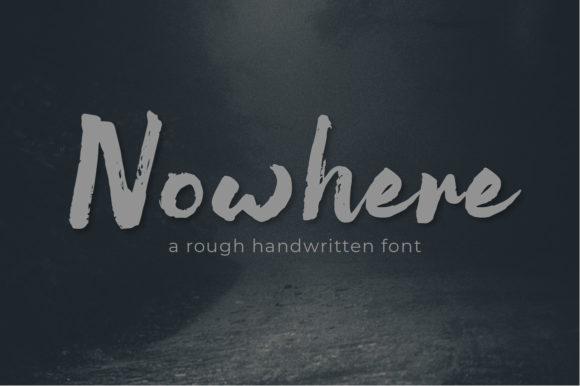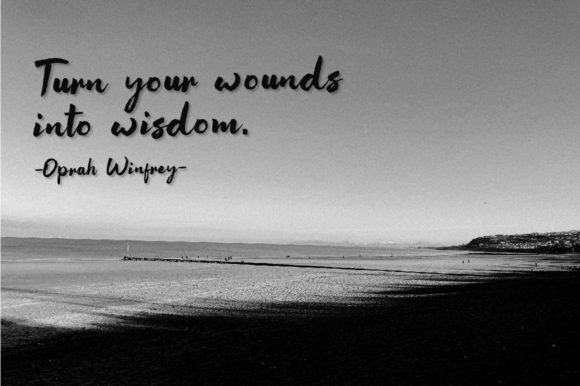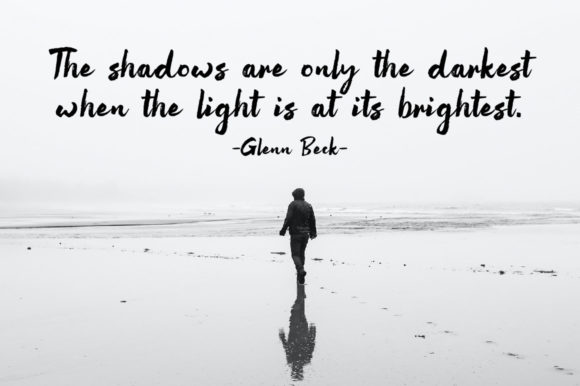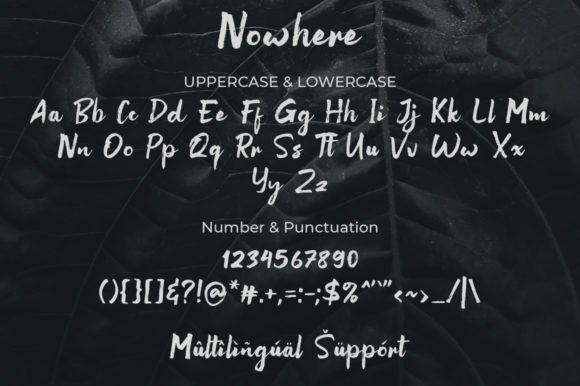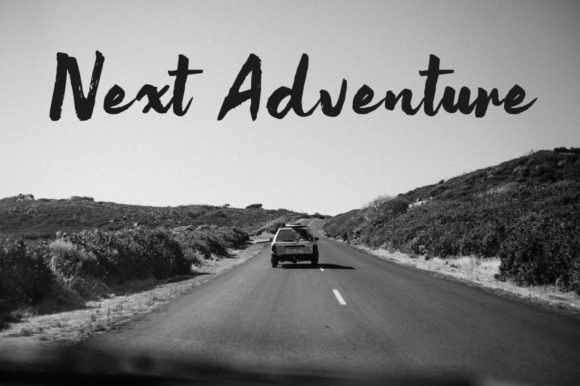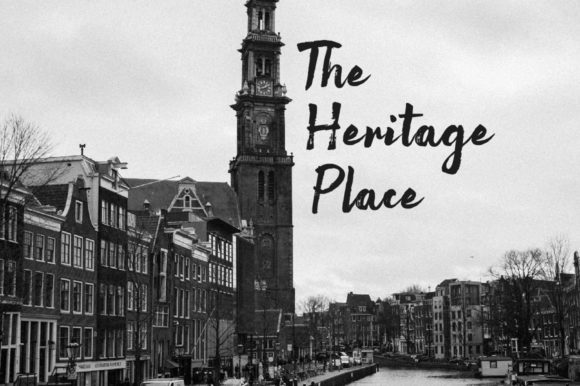
Nowhere Font
About Nowhere Font
Nowhere is a rough brushed handwritten font. It is the best choice for creating eye catching logos, branding and quotes. Every letter has a unique and beautiful touch, which will make your design come alive!